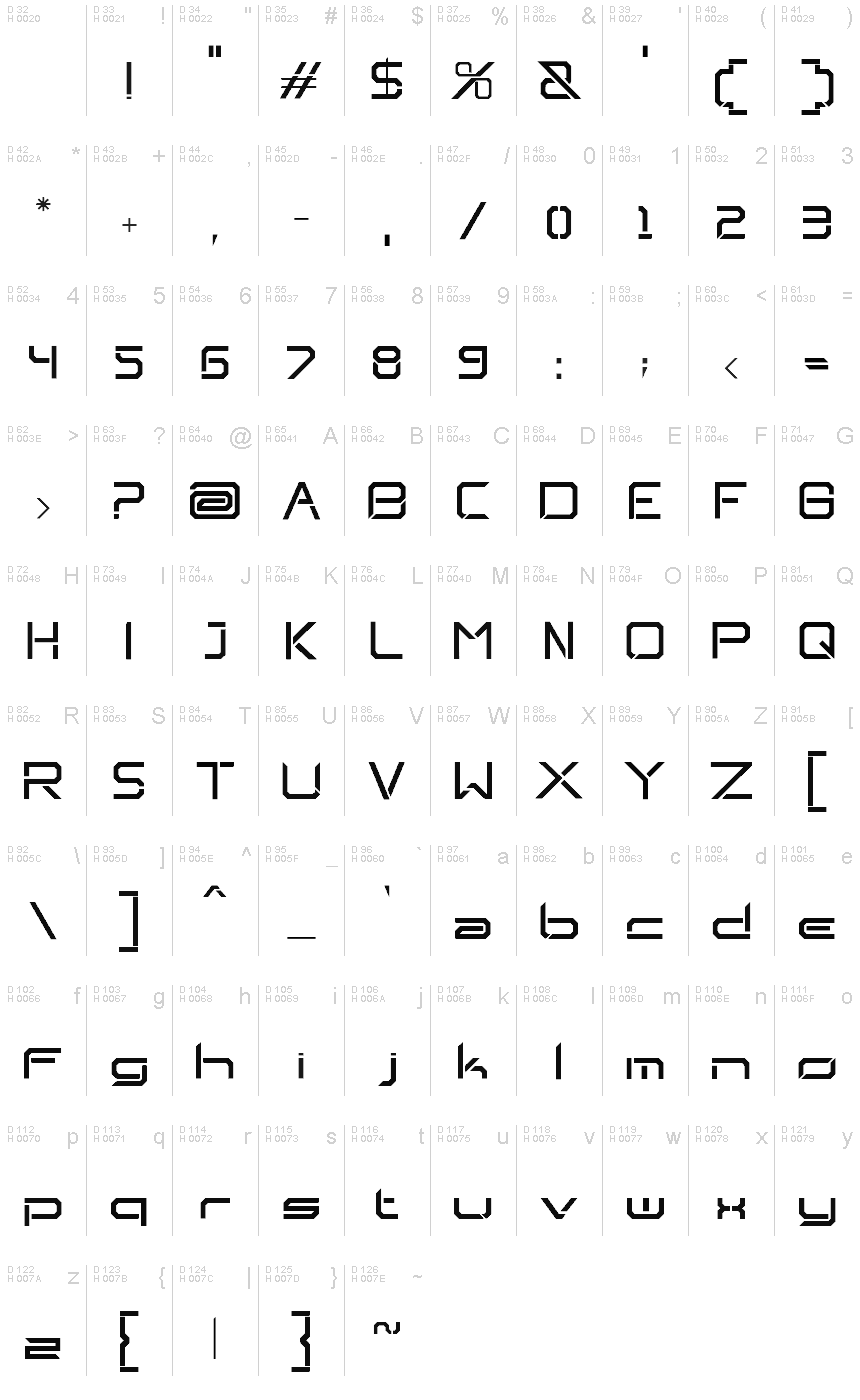
Neptunes
Neptunes is a captivating display font that exudes a bold, futuristic aesthetic. Designed by BlackLotus, this expanded typeface boasts a striking visual appeal, with its angular letterforms and clean, minimalist lines.
The light weight lends an airy, modern feel, while the expansive width adds a sense of grandeur and impact. Neptunes shines in headlines, titles, and other high-visibility design elements, where its distinctive style can truly command attention.
Its versatility extends across various mediums, from print to digital, making it a versatile choice for designers seeking a bold, forward-thinking typographic solution.
The light weight lends an airy, modern feel, while the expansive width adds a sense of grandeur and impact. Neptunes shines in headlines, titles, and other high-visibility design elements, where its distinctive style can truly command attention.
Its versatility extends across various mediums, from print to digital, making it a versatile choice for designers seeking a bold, forward-thinking typographic solution.